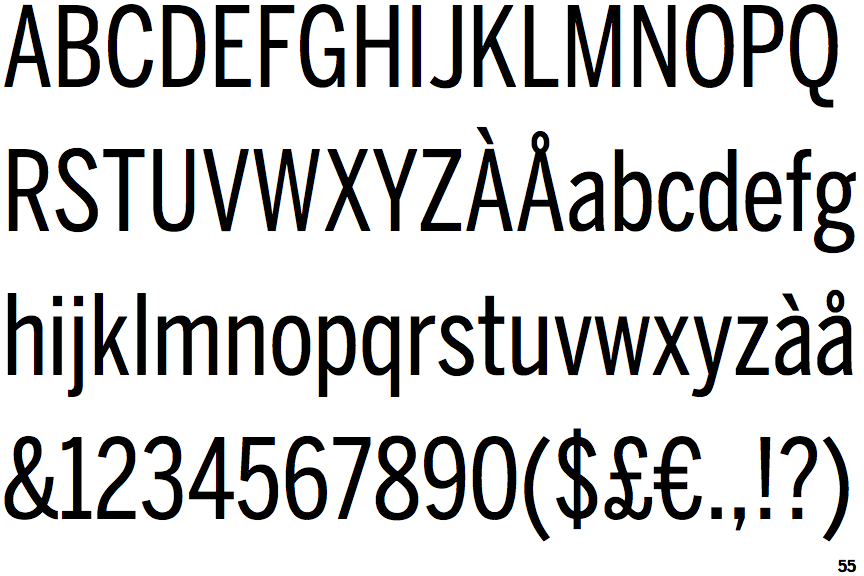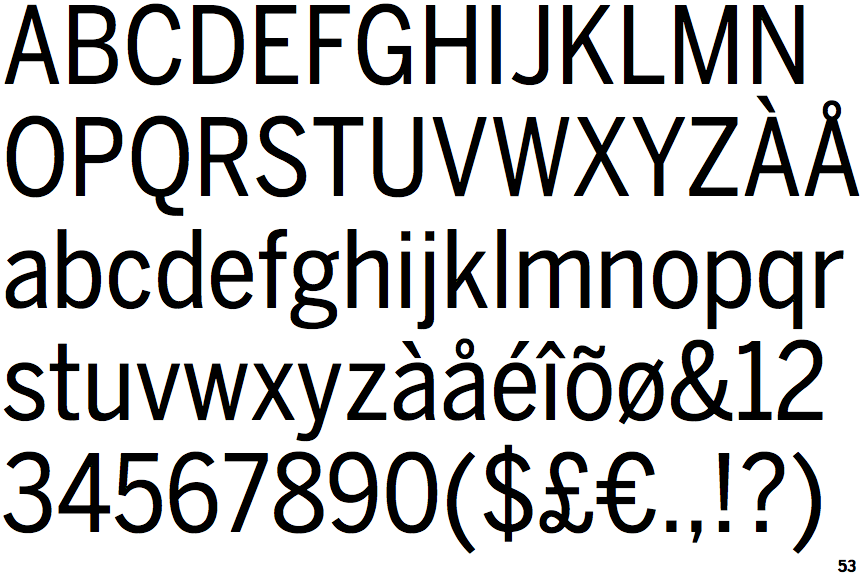
Benton Sans Font Purchase. Benton sans font free download. This font is an improved version of benton gothic font.
In 1995 The Designer Extended This Font Family By The Addition Of Cyrus Highsmith Of The Font Bureau.
It Also Has Many Uppercase, Lowercase.
He did this by studying the 1908 news gothic samples from the smithsonian institution. 64 professional benton sans fonts to download. Cyrus highsmith reviewed news gothic, and with the font bureau.
This font is released in 1995 by font bureau and spread this font through cyrus highsmith. In 1903 faced with the welter of sans offered by atf, morris fuller benton designed news gothic, a 20th century standard. Classics (baskerville, futura, garamond) alongside hot new fonts (tt fellows, shorai sans variable,hernandez bros).